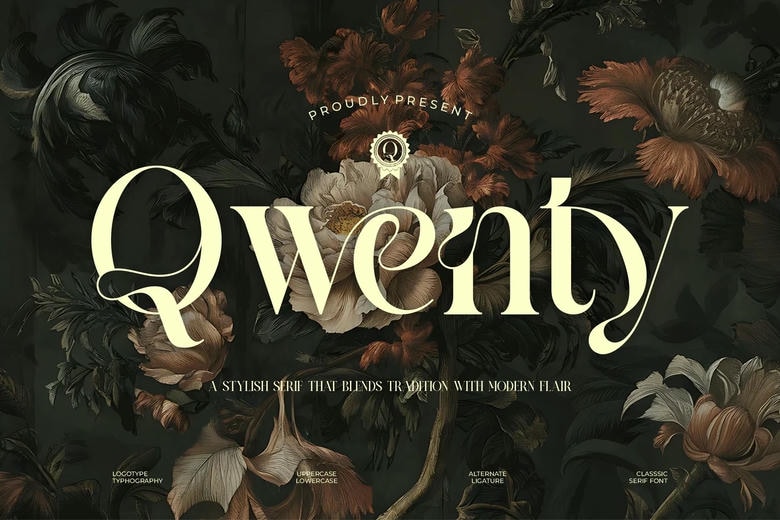
Qwenty Font
Qwenty is a vintage and a retro font type of all branding and logo designs. This serif typeface is of a beautiful nature and vintage and retro. This font is appropriate in invitation cards design, cool logos, movie titles, movie names, business cards, book titles, brand names and other designs.
Qwenty Serif is a fluent serif type that comes out as a very sophisticated and a very in-the-moment. This font is an excellent match to any project due to its elegant ligatures.
Qwenty Serif Font